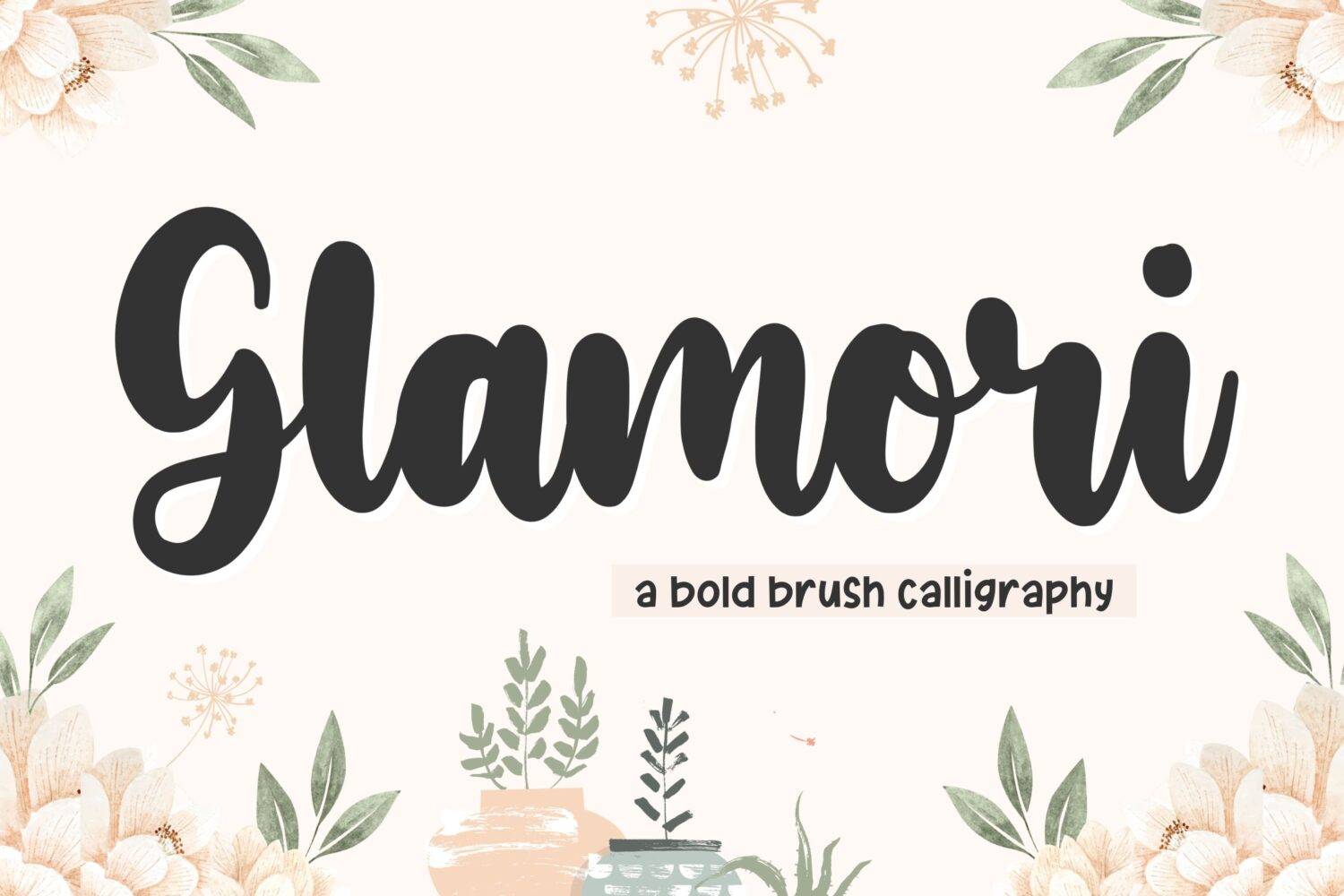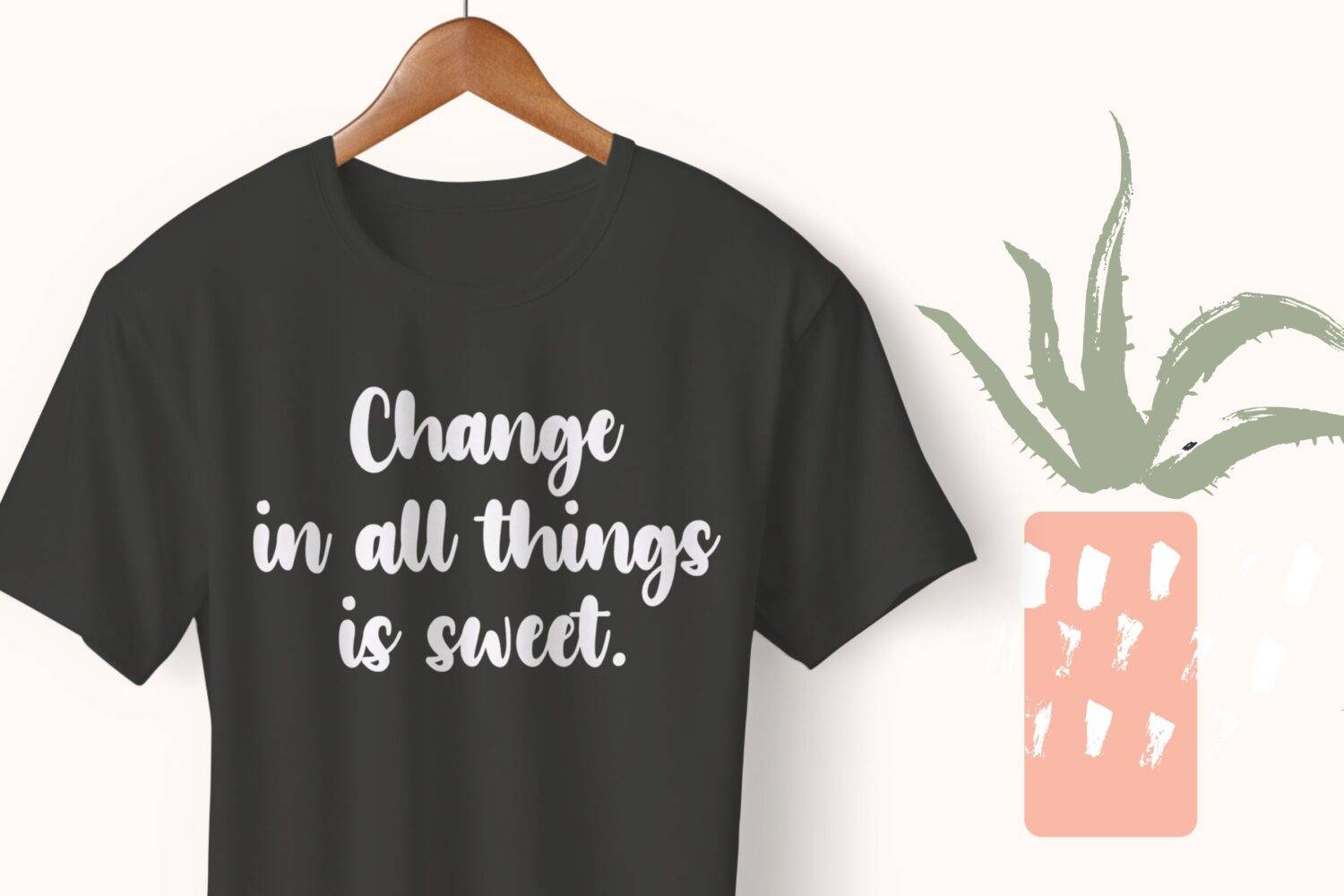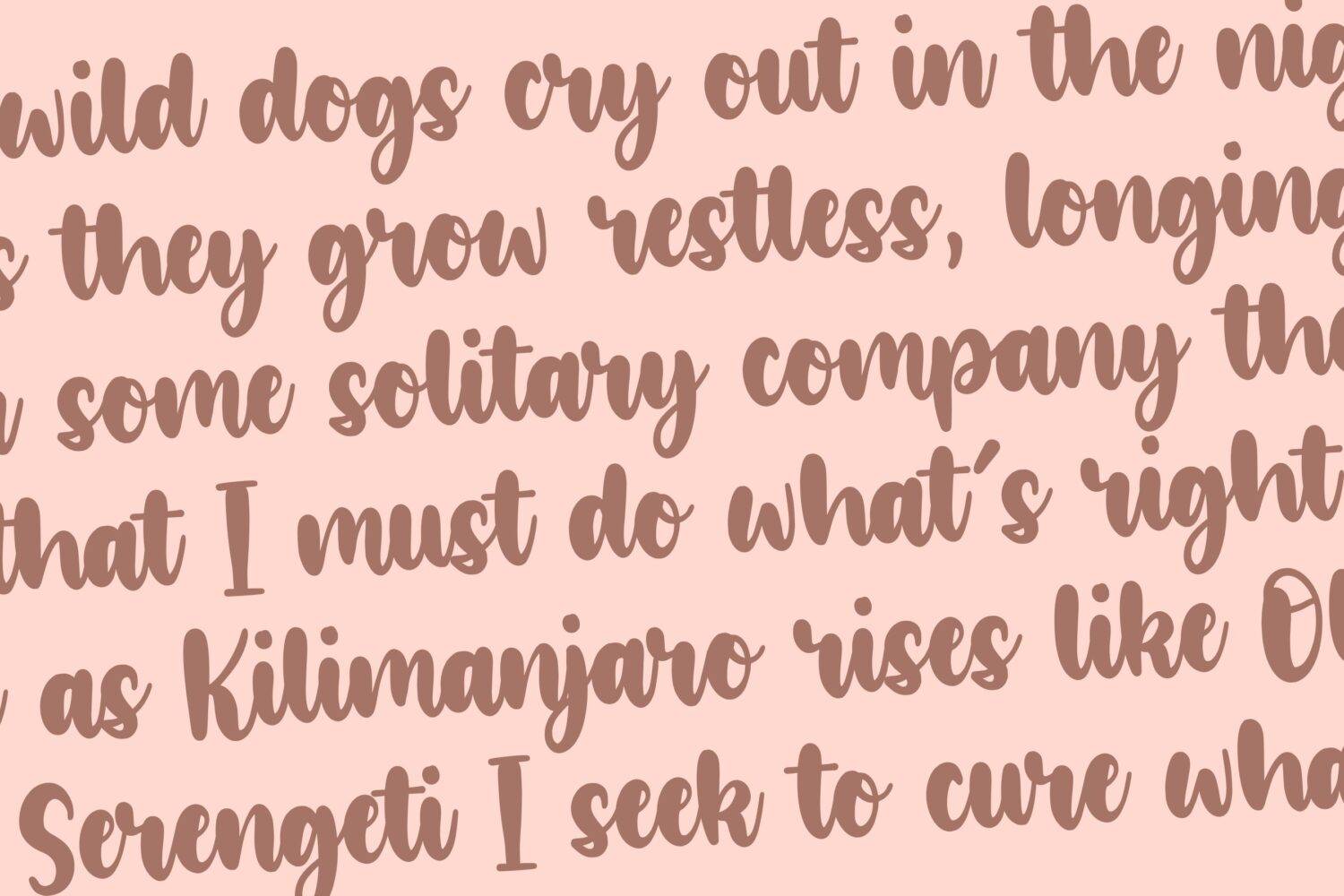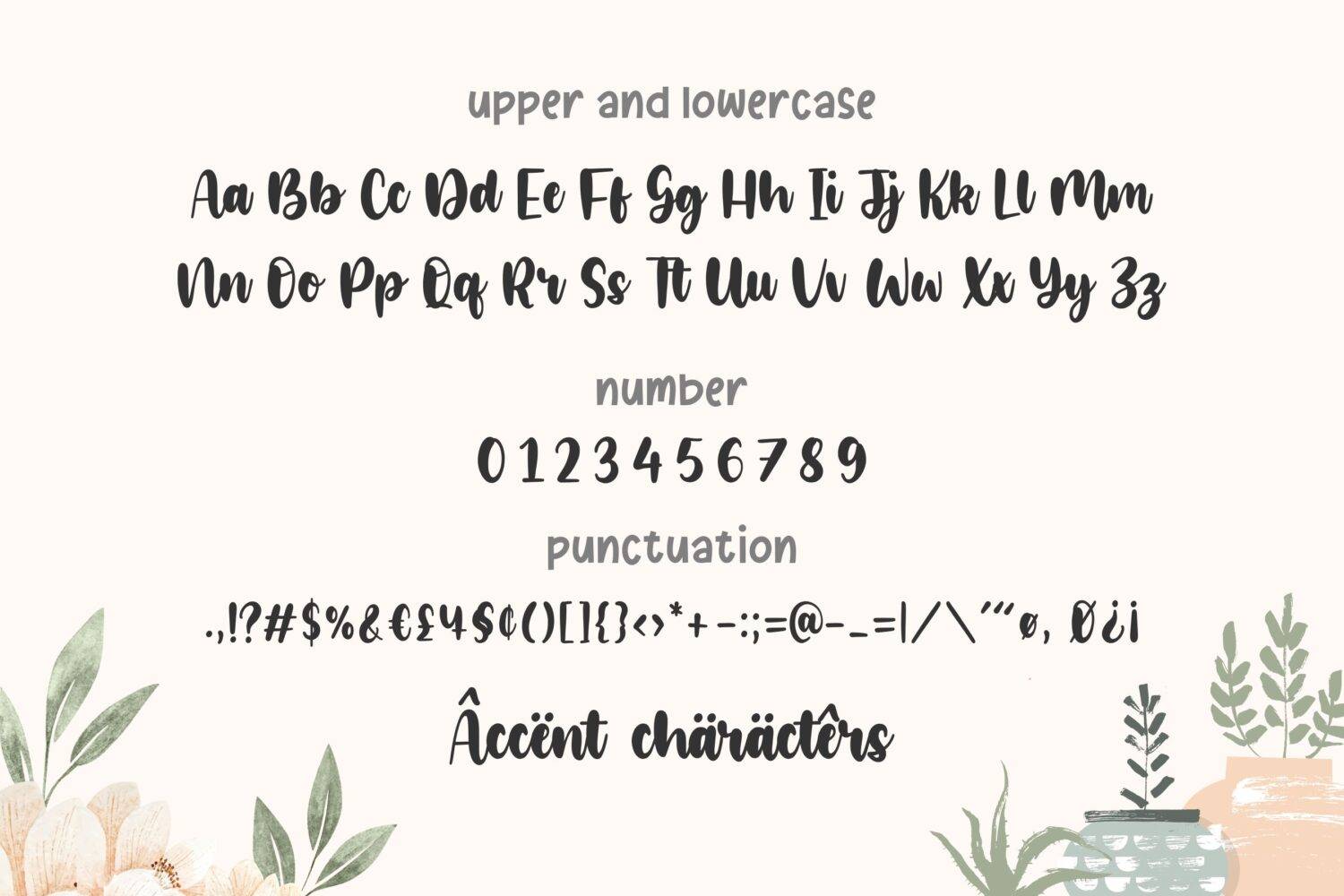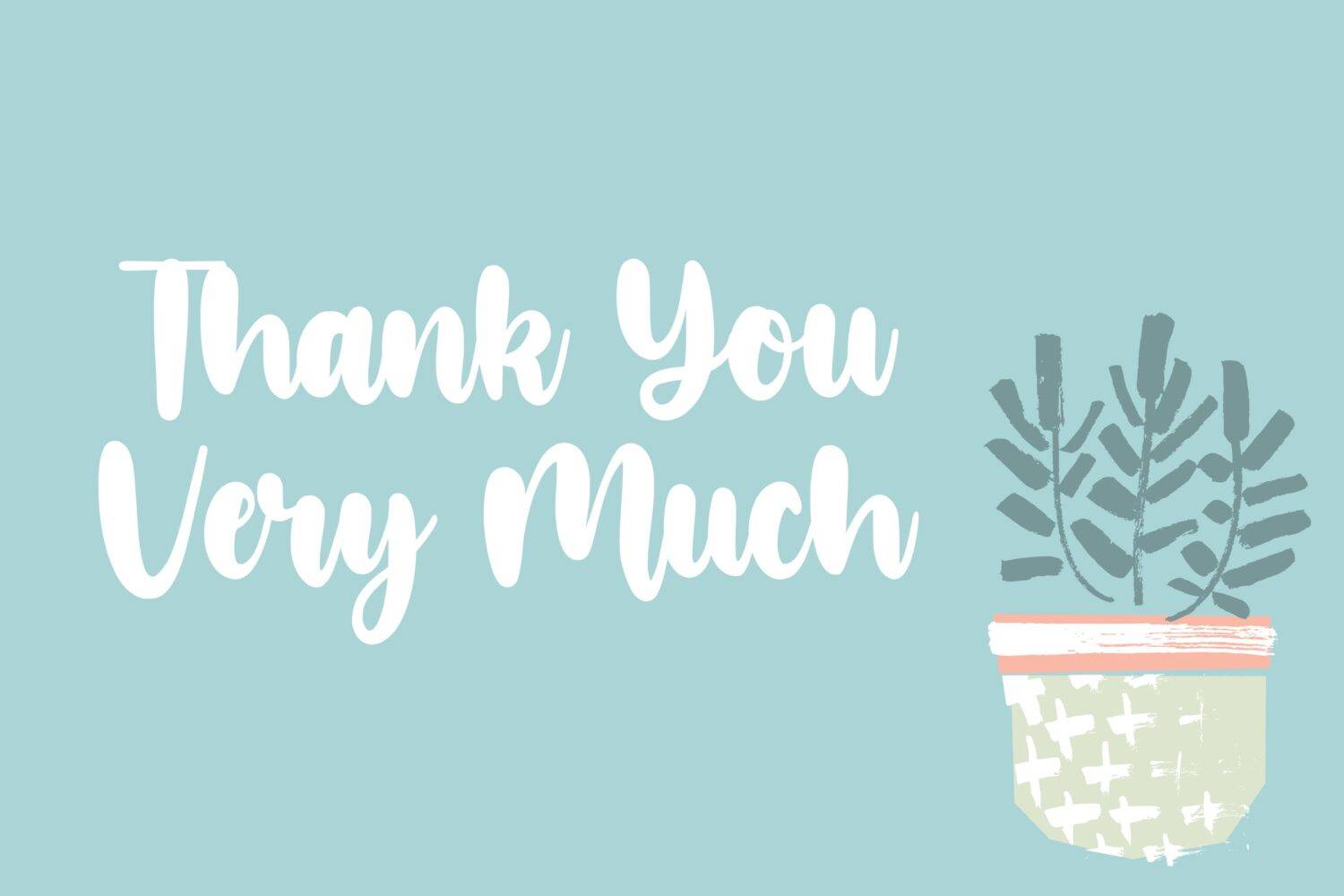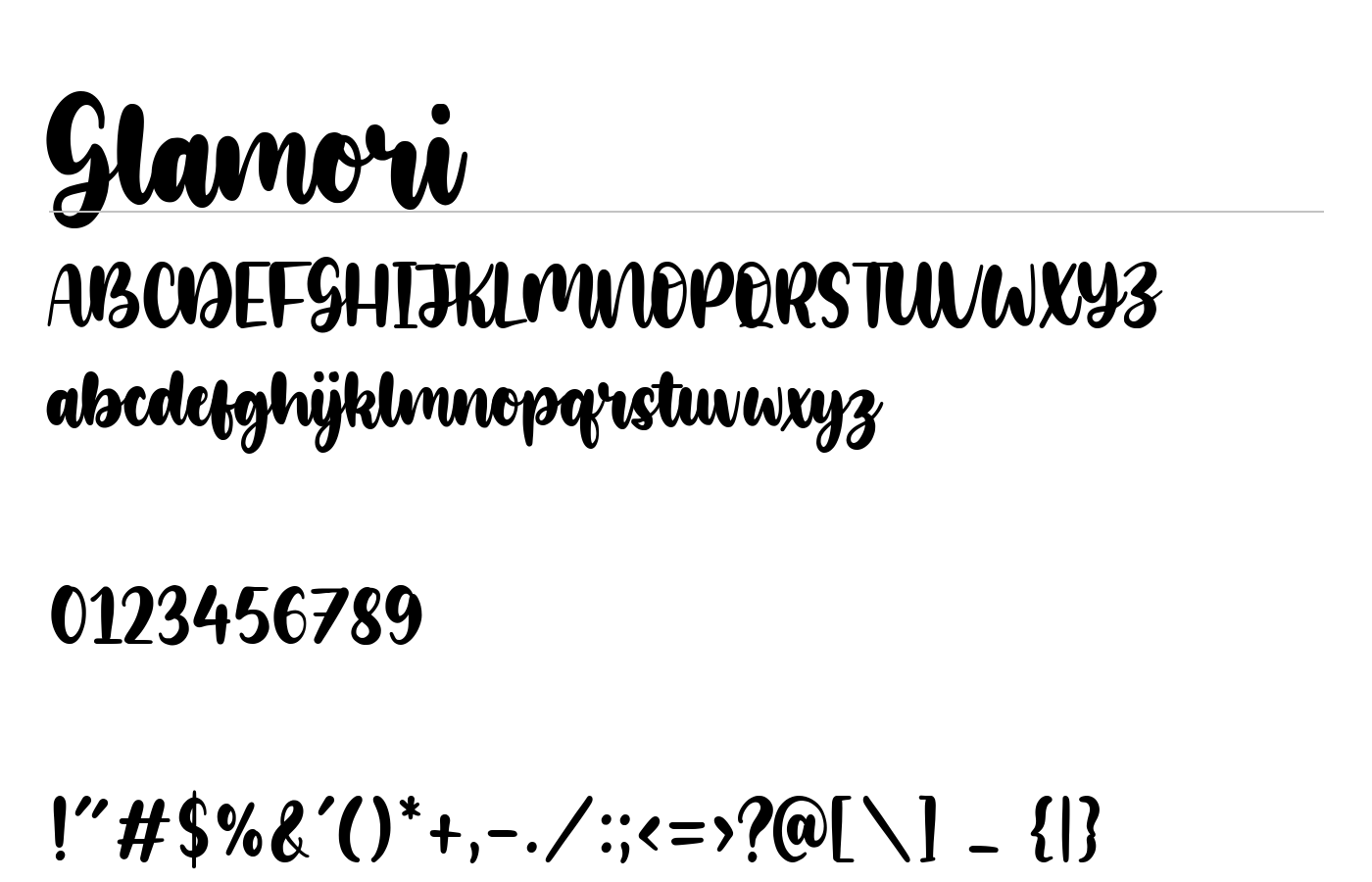
Glamori Bold Brush is a lively and bold script font that captures the natural flow and texture of hand-painted brush strokes. Its rounded, connected letterforms create an inviting and playful vibe, perfect for adding a personal touch to branding, packaging, and headline designs. This font’s friendly yet dynamic style works well for creative projects that want to stand out with warmth and energy.
Glamori Bold Brush Font
About Glamori Bold Brush Font